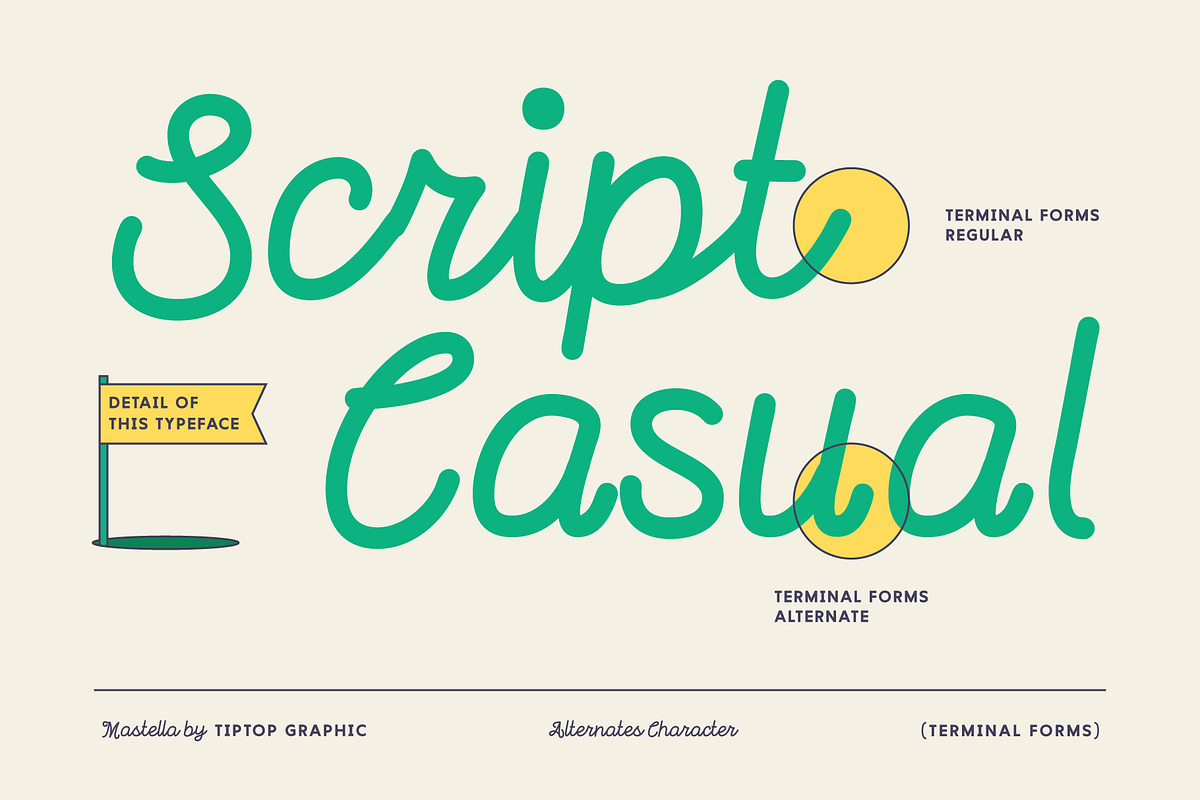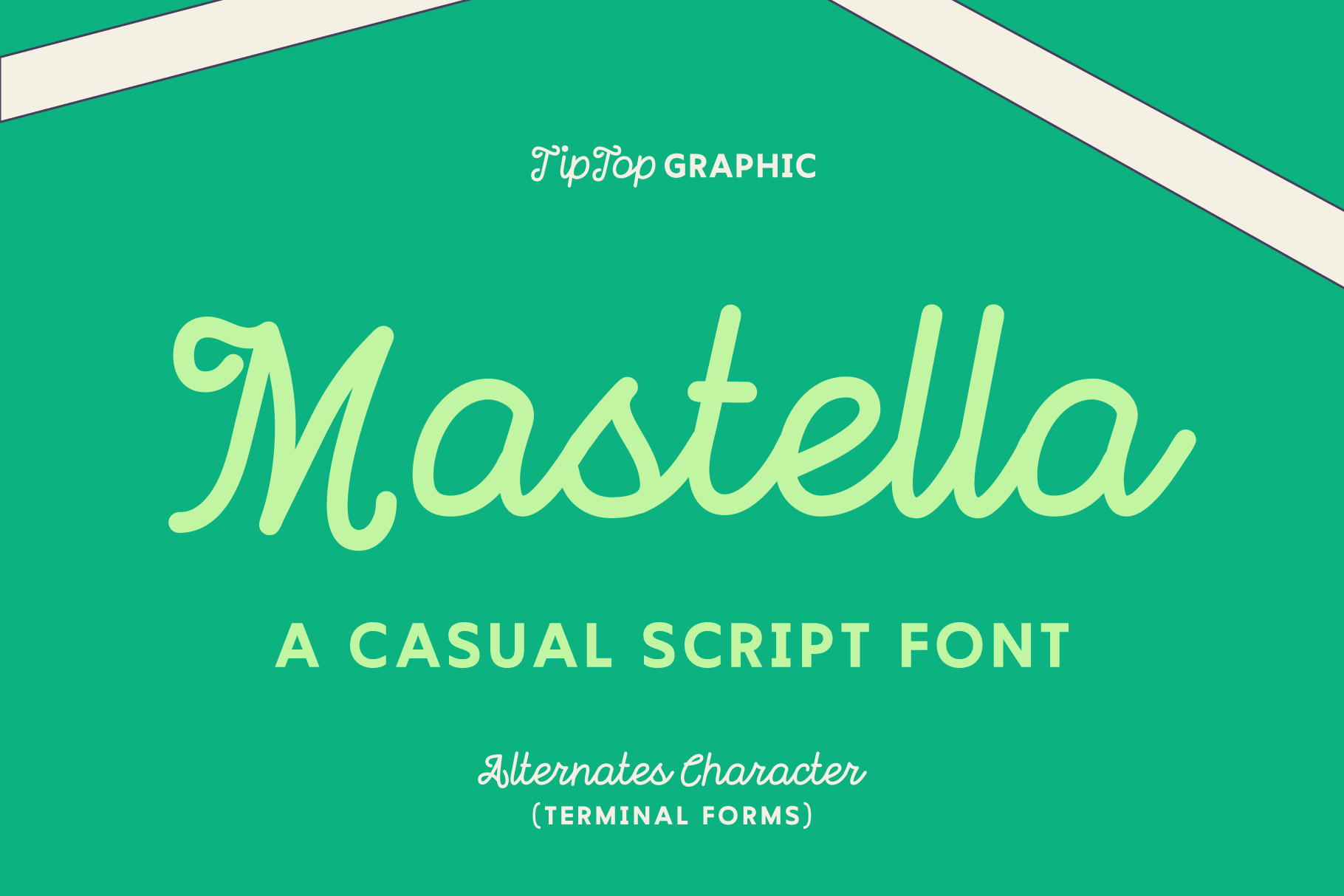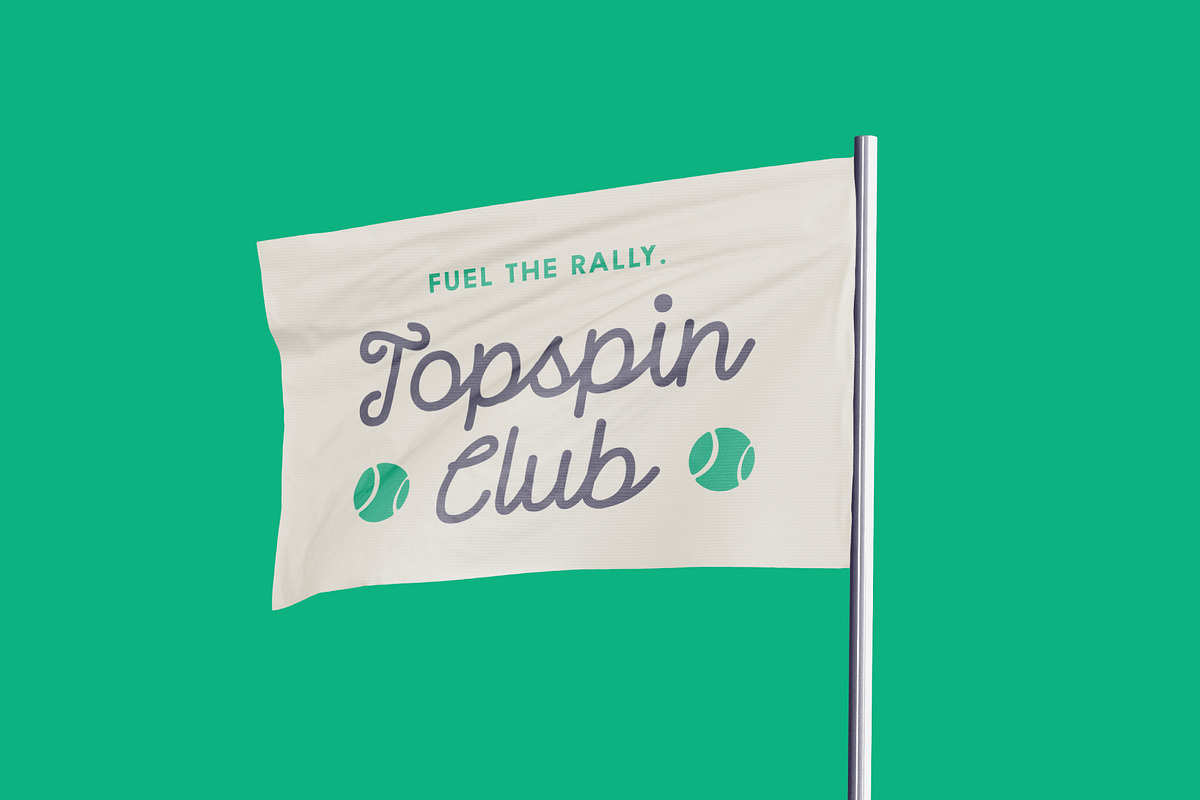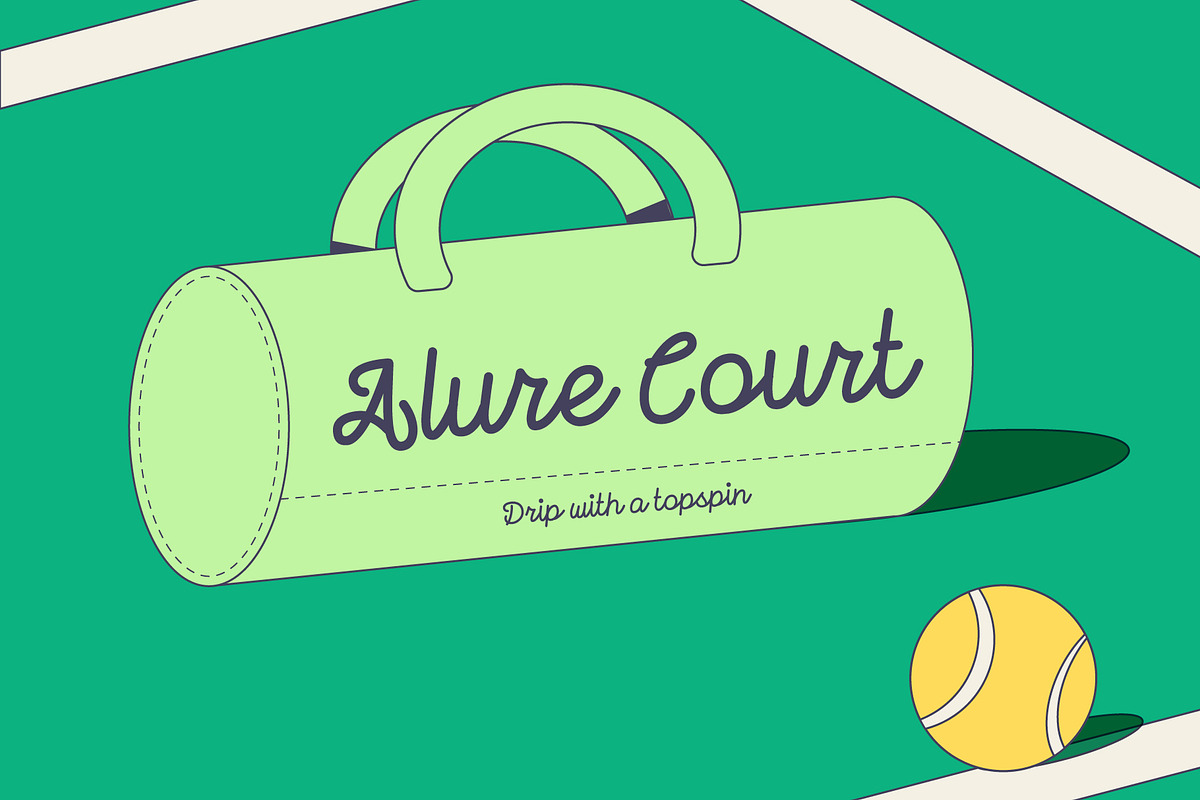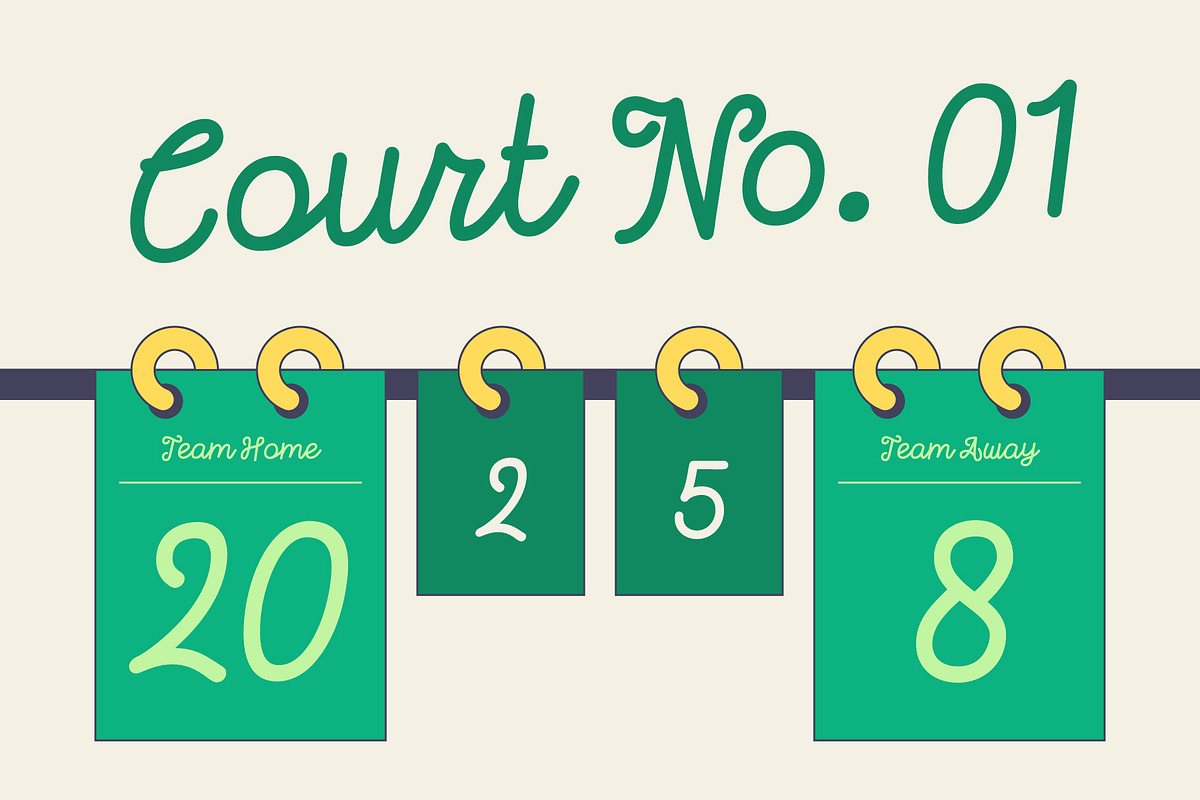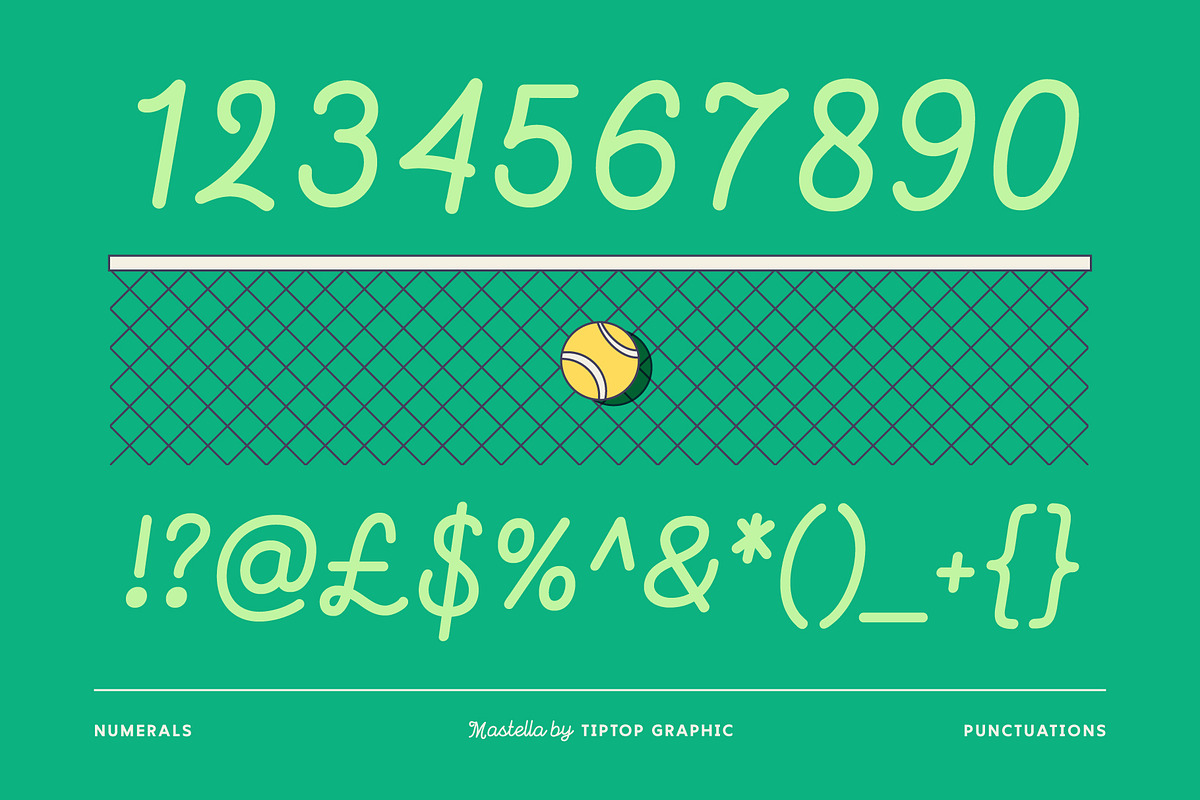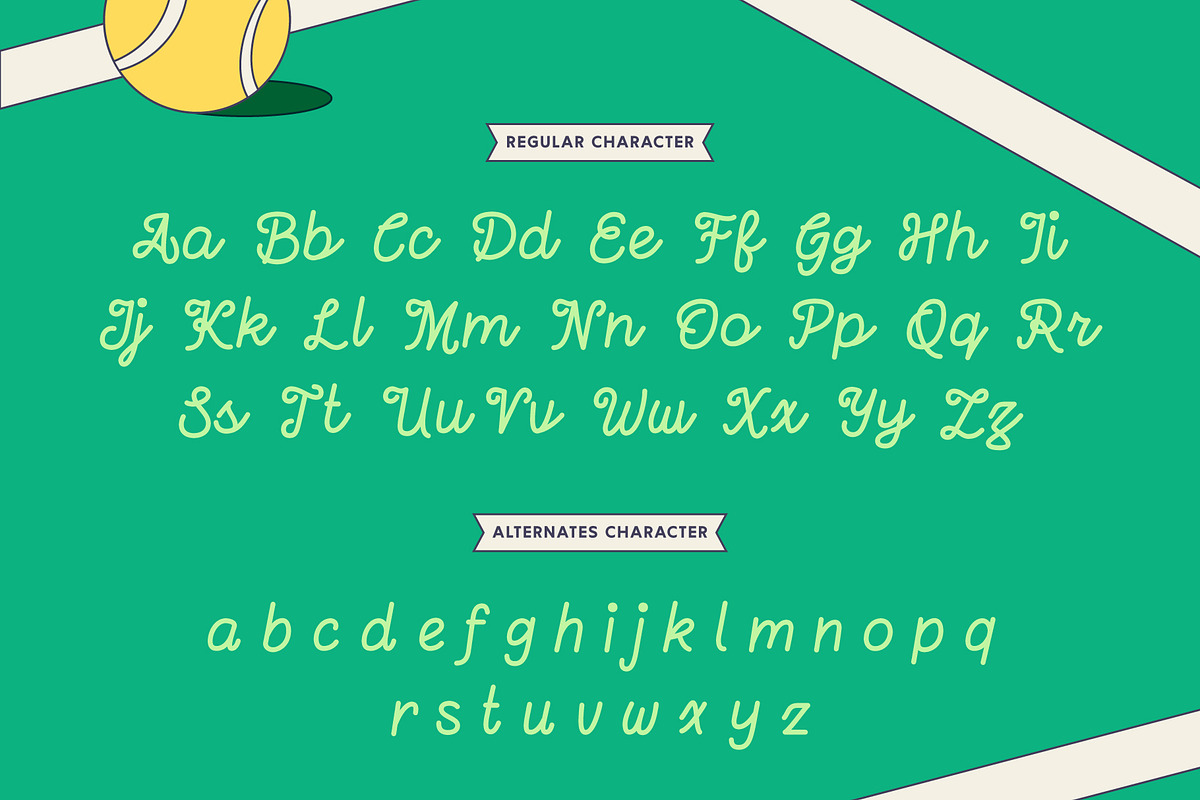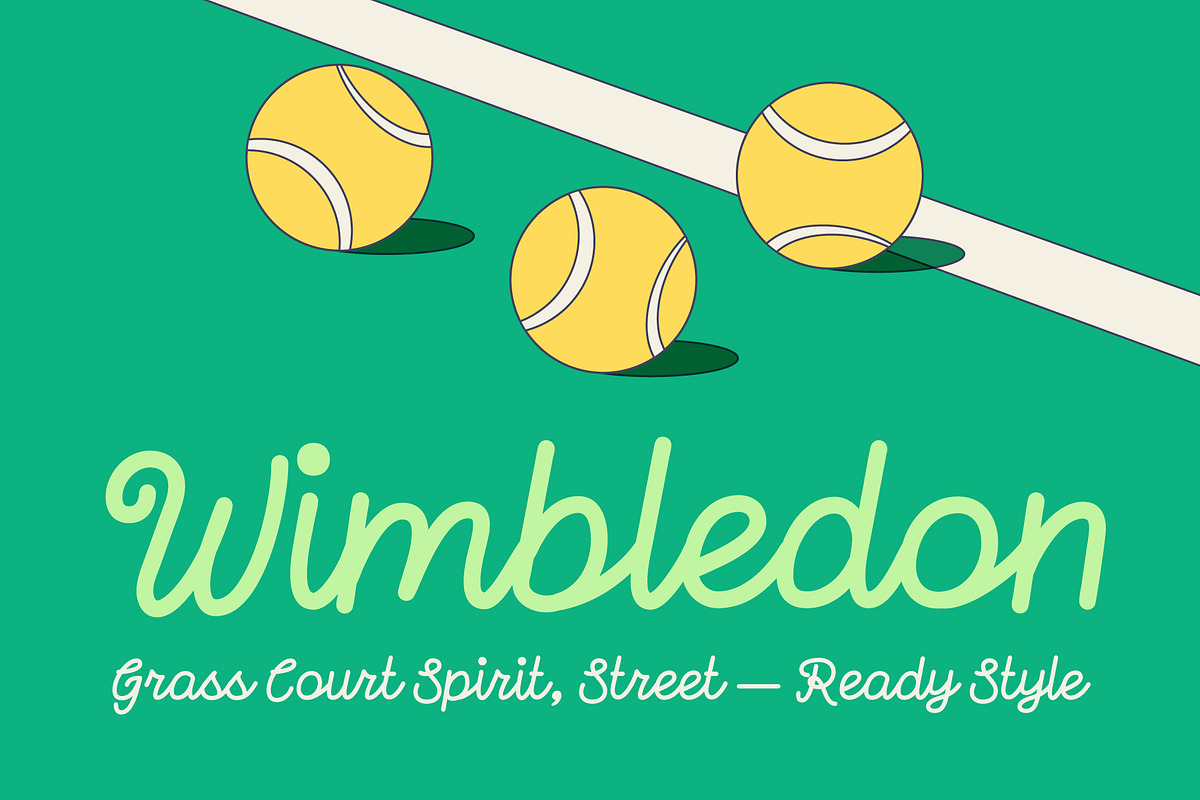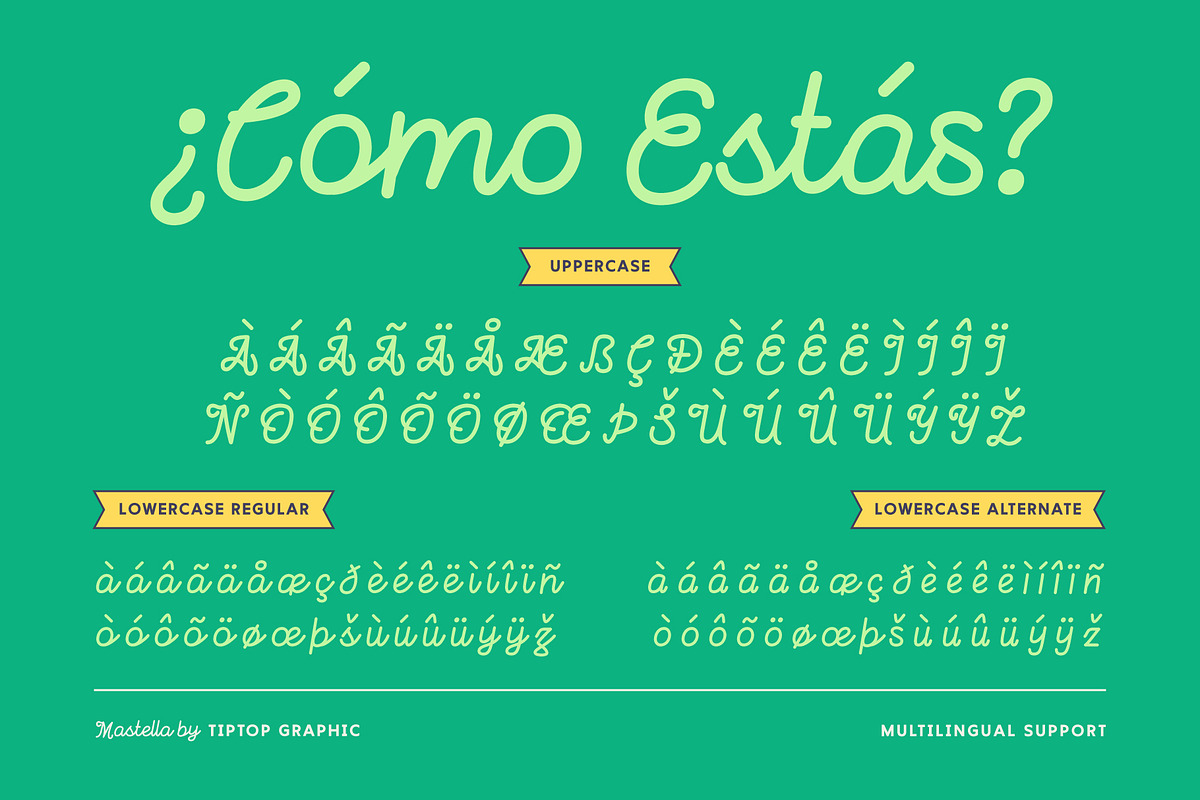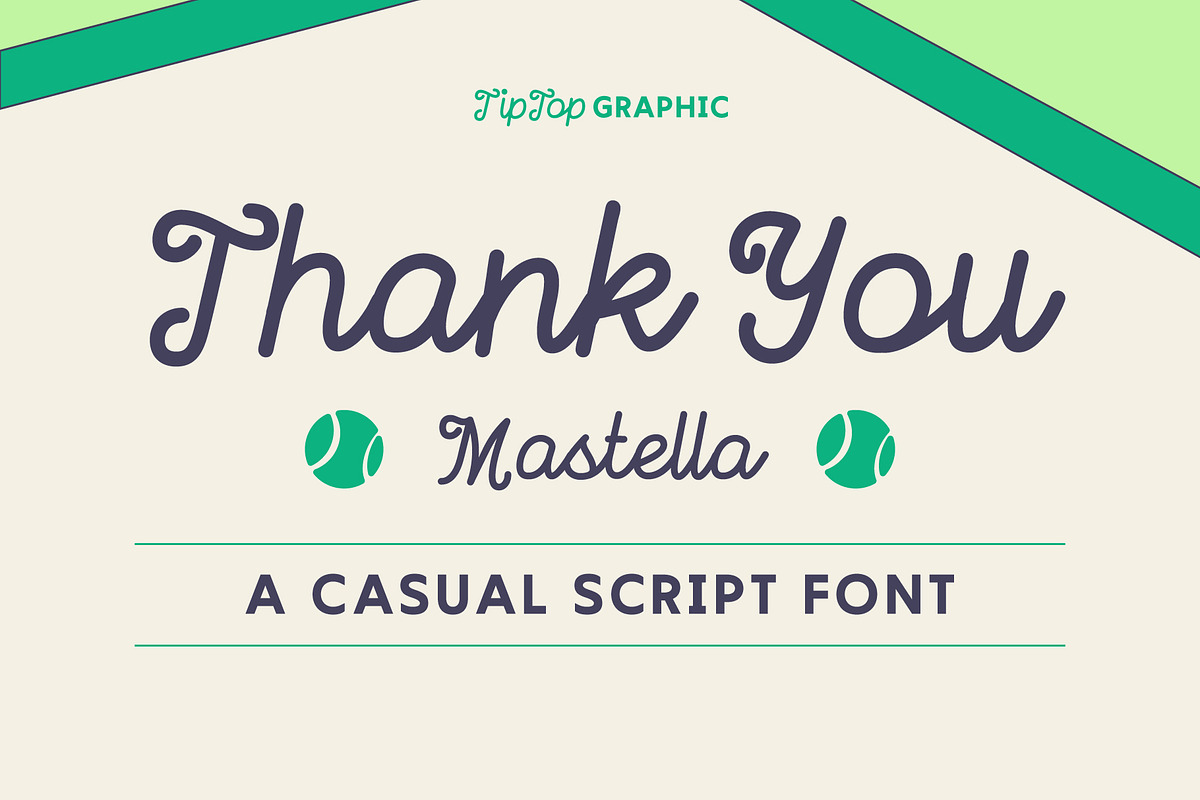
Mastella - Casual Script Font
Mastella is a bold and stylish casual script font designed for high-energy branding, making it a perfect fit as a sporty script padel font. Its dynamic strokes and smooth curves capture the movement and rhythm of fast-paced sports like padel, while maintaining a modern, approachable look. Whether used for team logos, sports apparel, or event graphics, Mastella brings a punch of personality and athletic flair to every design.
Mastella - Casual Script Font features:
- Punctuation & Numbers